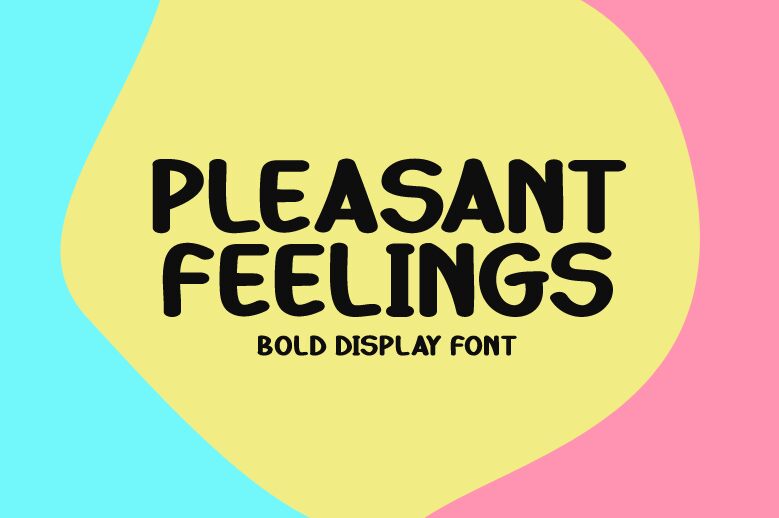
Pleasant Feelings, designed by Md Shohail Bhuian, exudes a casual elegance with its handwritten style that seems to dance across the page. The font's fluid, organic strokes and playful variability in size capture the spontaneity of personal handwriting, while maintaining legibility and charm.
Its aesthetic appeal lies in the warmth and familiarity it brings to any design – like a note penned from a friend. Pleasant Feelings is perfect for projects that require an intimate touch such as invitations, greeting cards, or branding for boutique businesses where a sense of individuality and approachability is paramount.